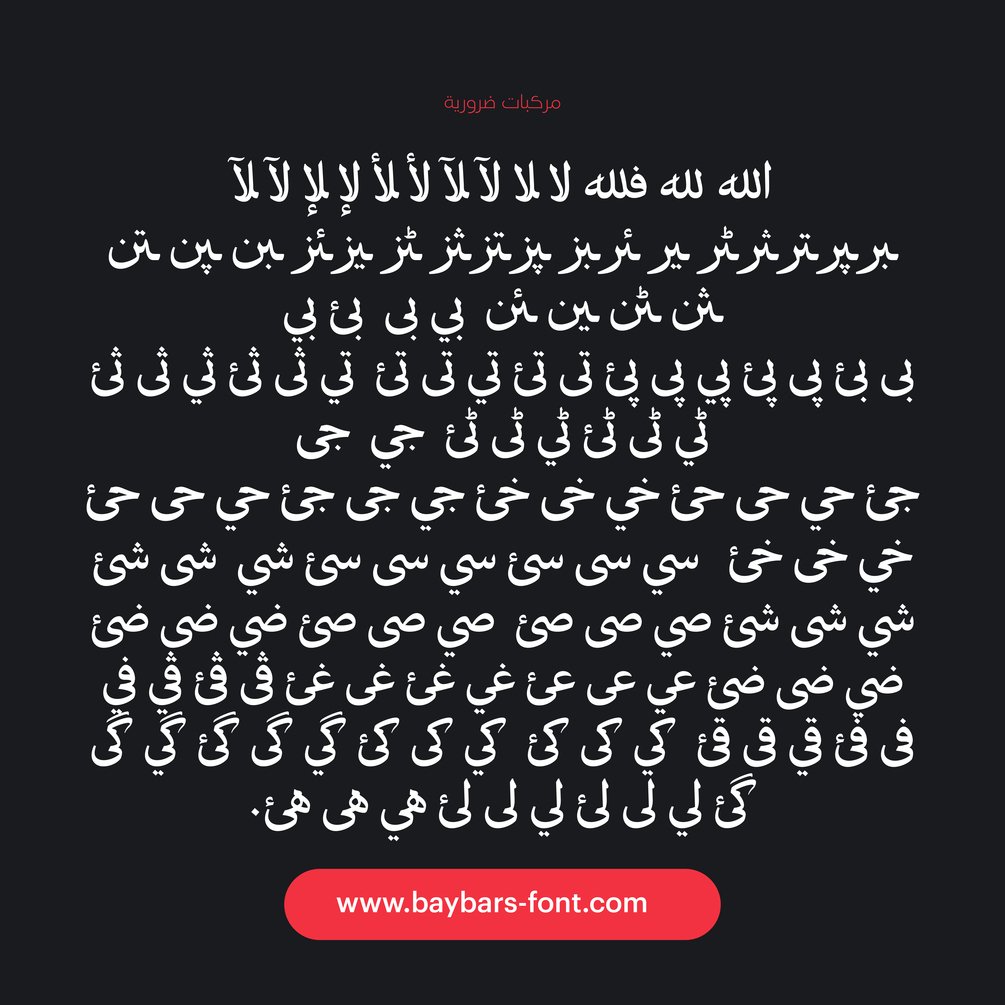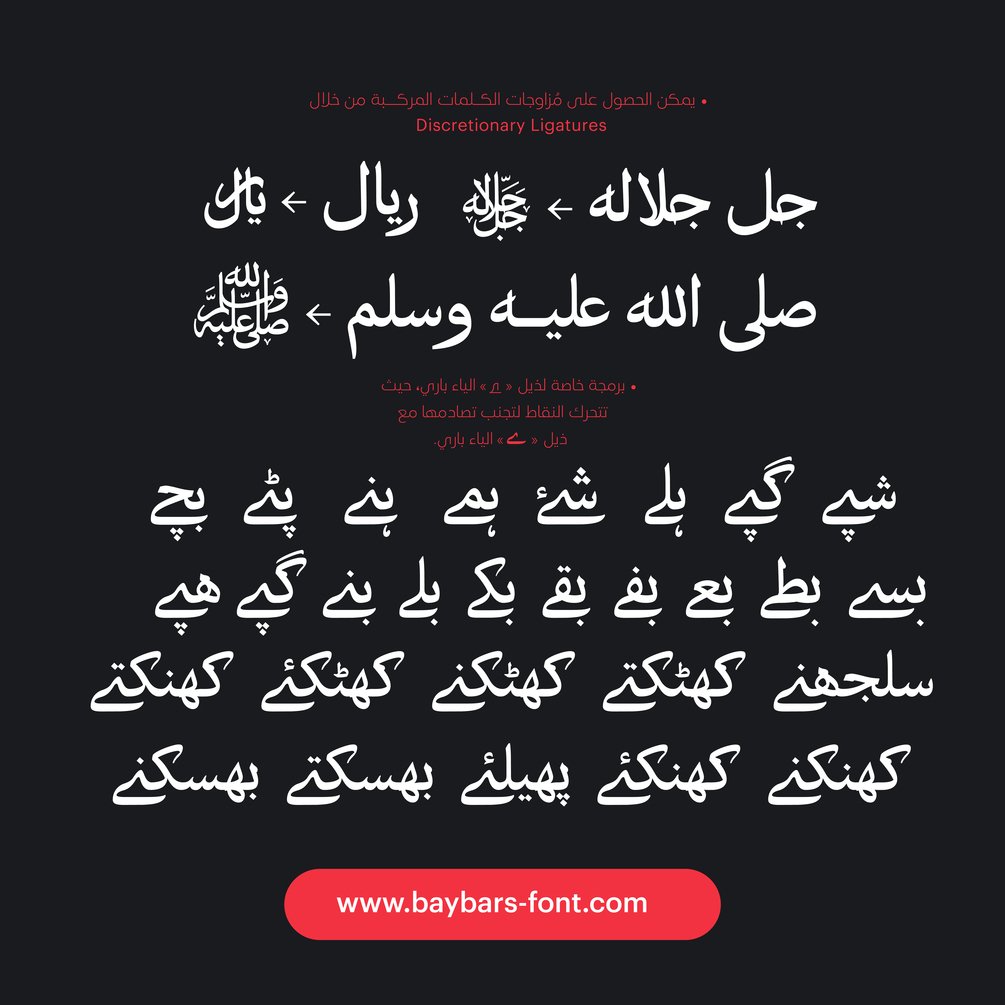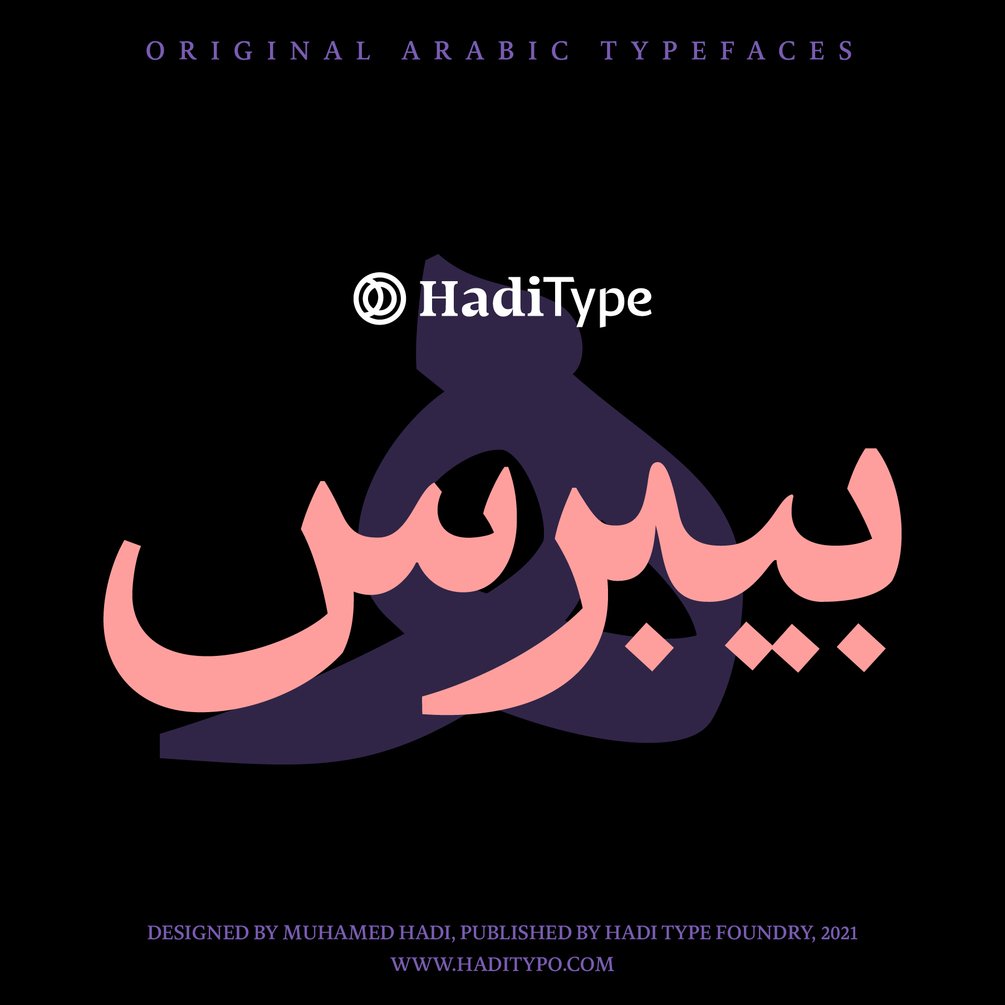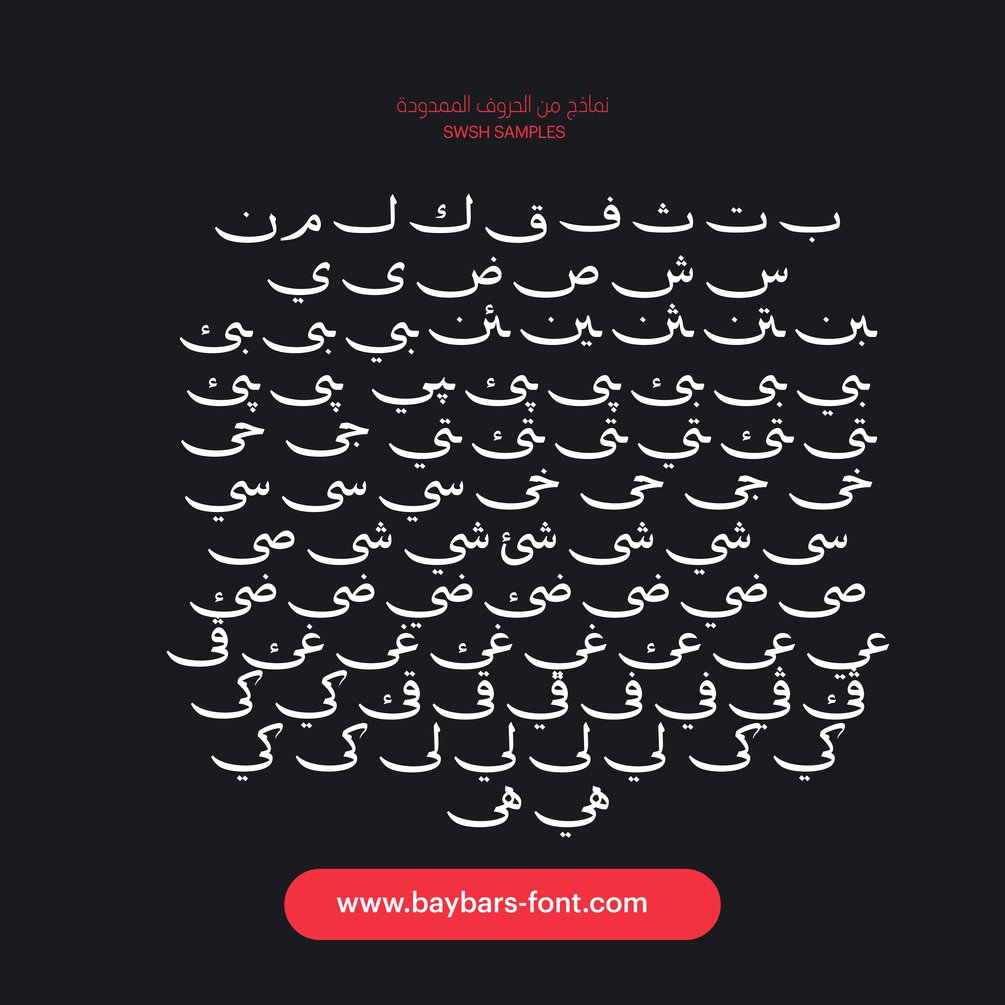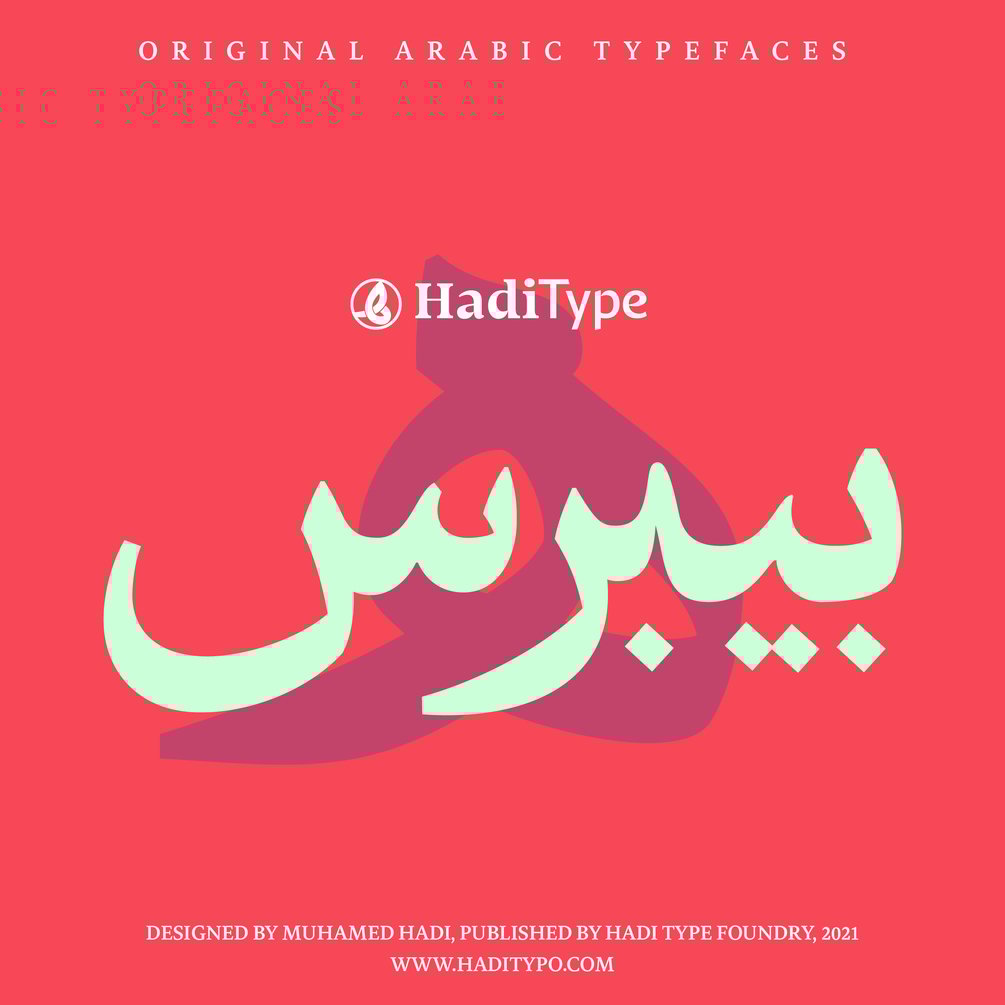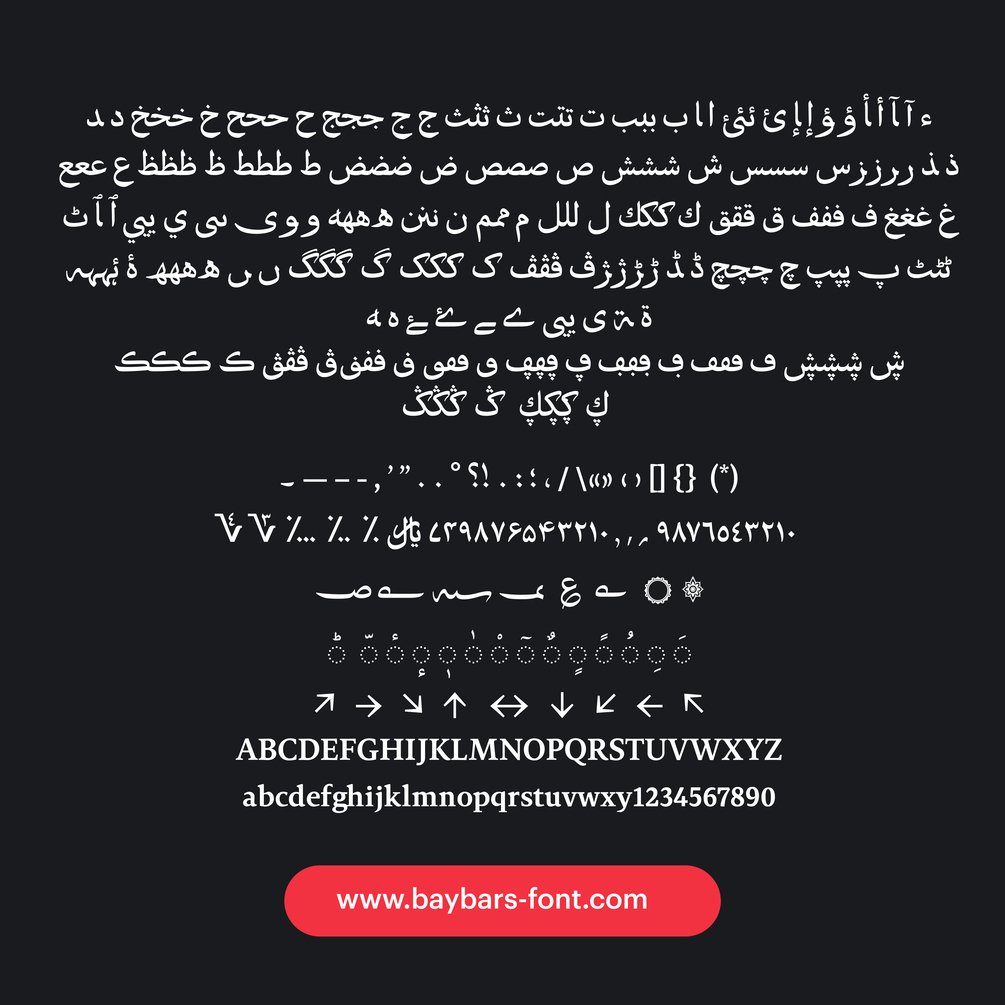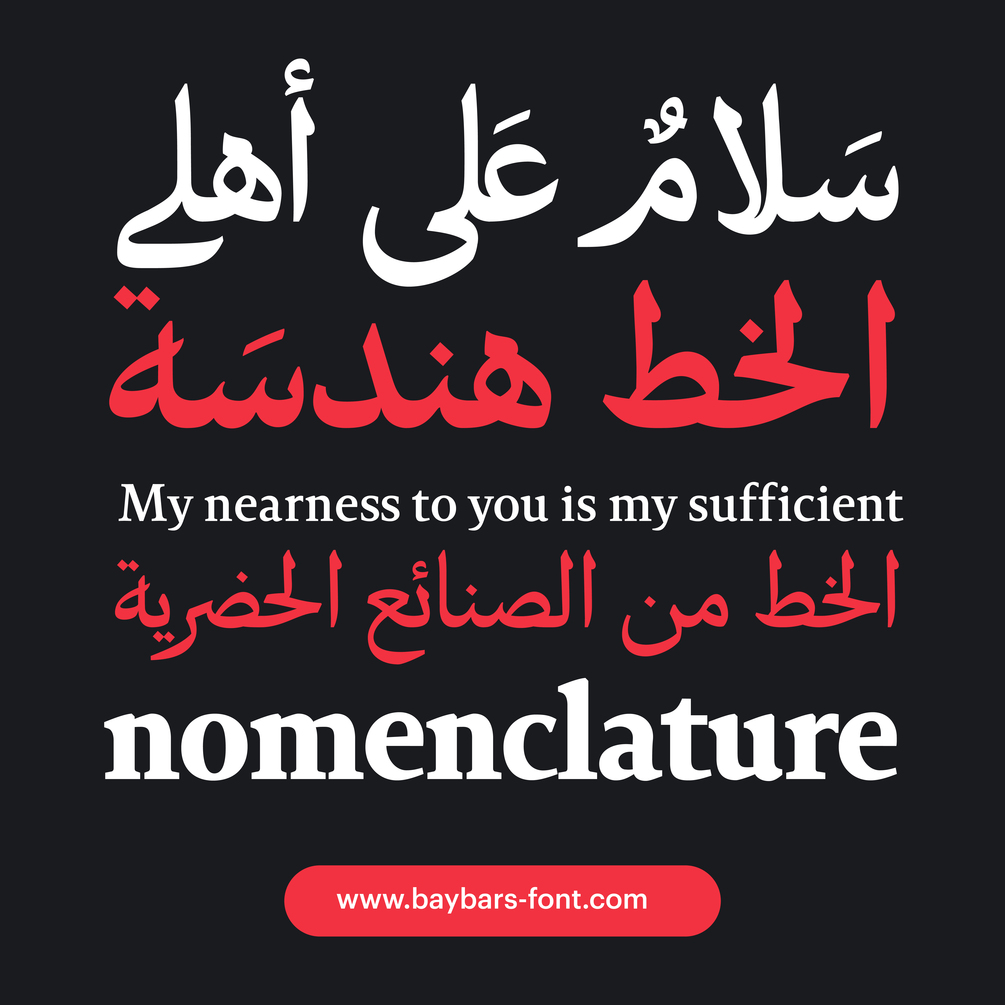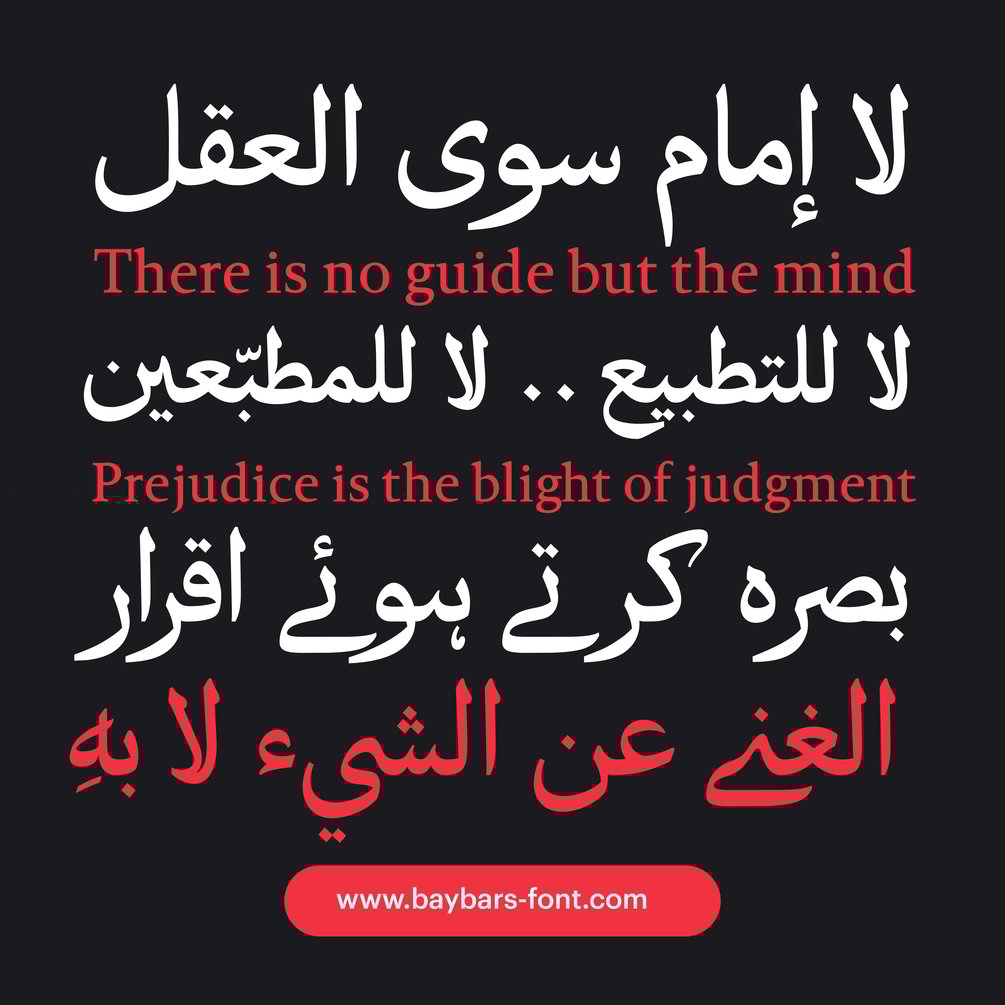
HT Baybars | Font Family
HT Baybars  A brand-new thuluth typeface; strong yet simple, carefully designed with utmost precision, designed by Muhammed Hadi
Naturally inspired by Mamluk Thuluth's calligraphic style, Baybars represents a contemporary and versatile choice for your texts.